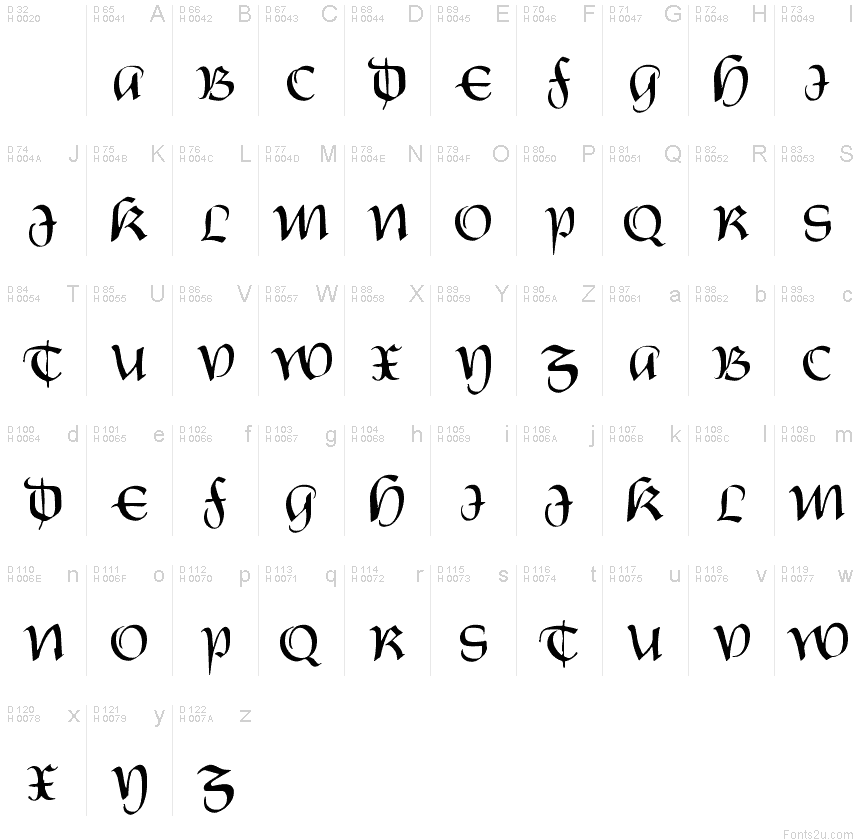
Castiglione Regular
Castiglione font is a free gothic medieval typeface that looks like it’s been brushed straight from an old grimoire. Heavy, inky strokes twist into ornate curls, while narrow inner spaces keep the texture dense and mysterious. It feels ceremonial and a little dangerous, with just enough flourish to read as hand-crafted rather than sterile or digital.
Using Castiglione, titles instantly take on a dark, historic weight that suits fantasy book covers, RPG and LARP logos, Halloween posters, metal band merch, escape-room branding, and vintage-inspired drink labels. This free font shines at larger sizes where its curling strokes can really breathe; pair it with a simple geometric sans for body text to keep layouts sharp and readable.